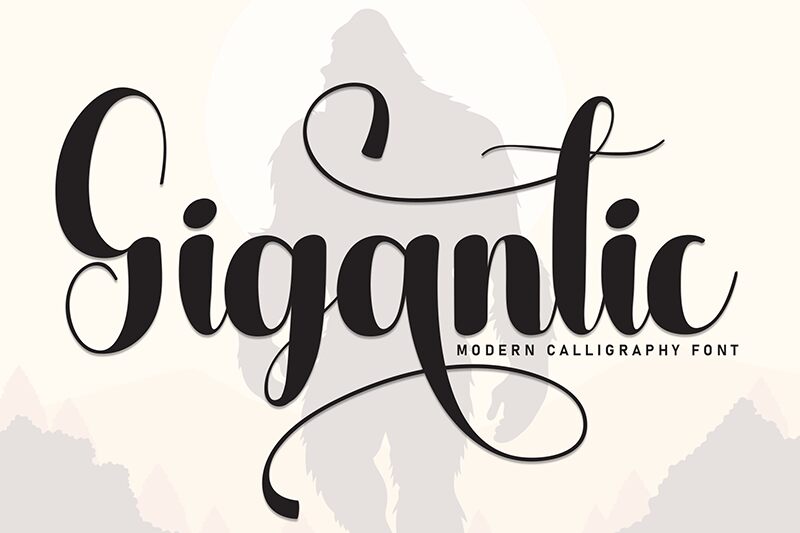
Gigantic
Gigantic font by Andi Moz is a free calligraphy font that marries elegance with expression through its flowing script. Exhibiting a modern calligraphic influence, this condensed font imparts a sophisticated mood that captures attention and retains it. If you’re looking to create elite designs for personal or professional needs, Gigantic’s charm can help.
Due to its expressive nature, the font works great when used in invitations, certificates, business cards, food menus to develop branding for restaurants found on related printed publications. It also suits beauty product packaging and signage as well as other businesses within this industry. Posters inside fashion stores can also benefit from using this new tool.